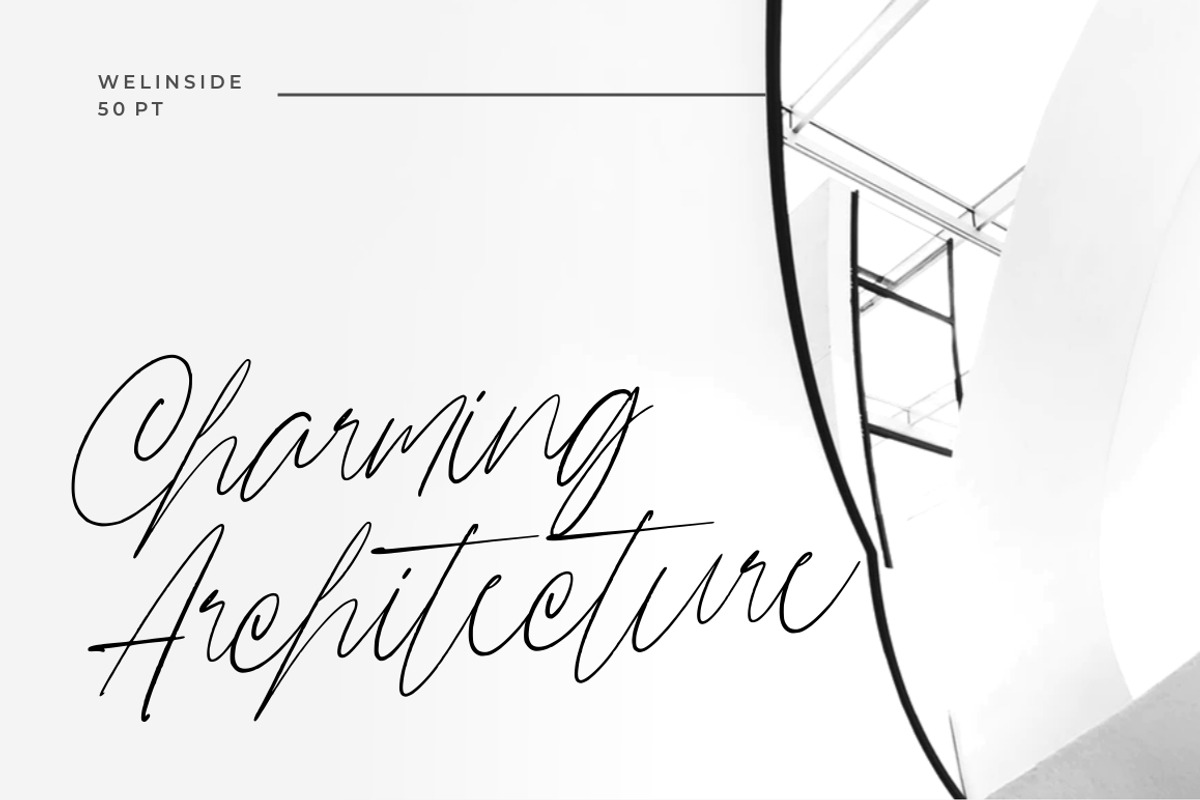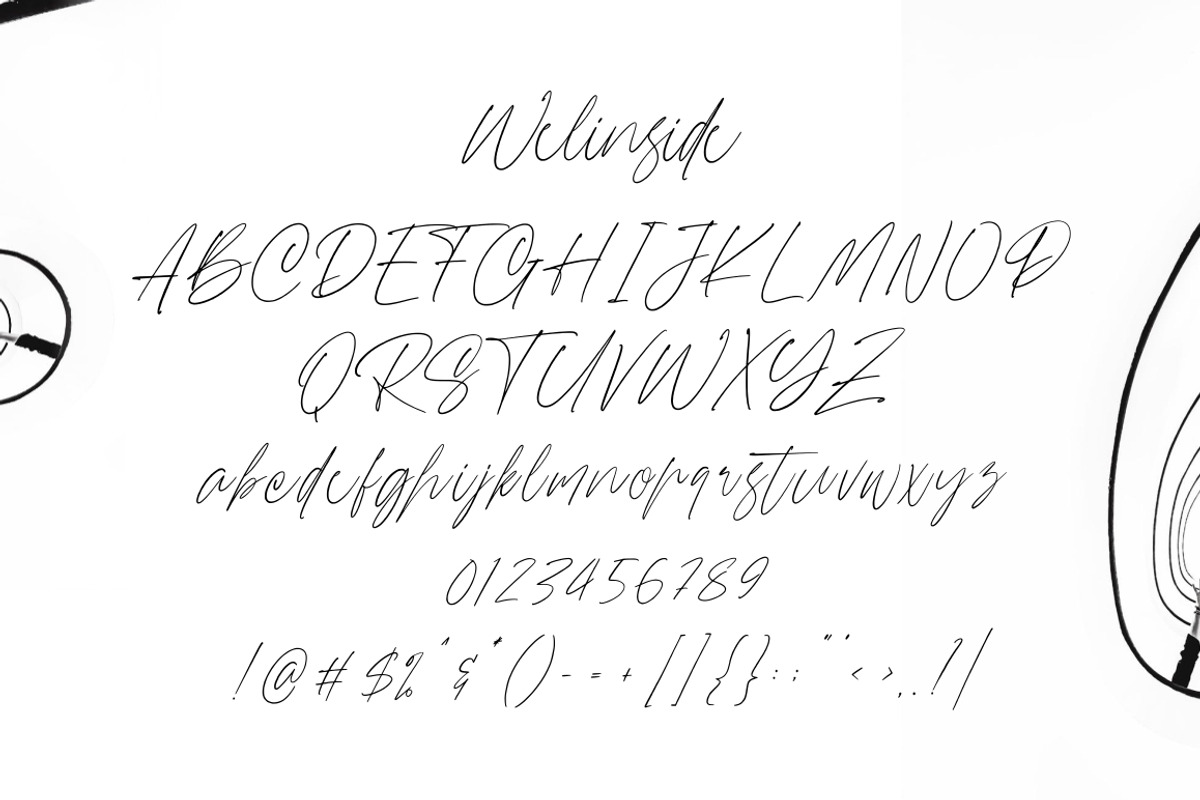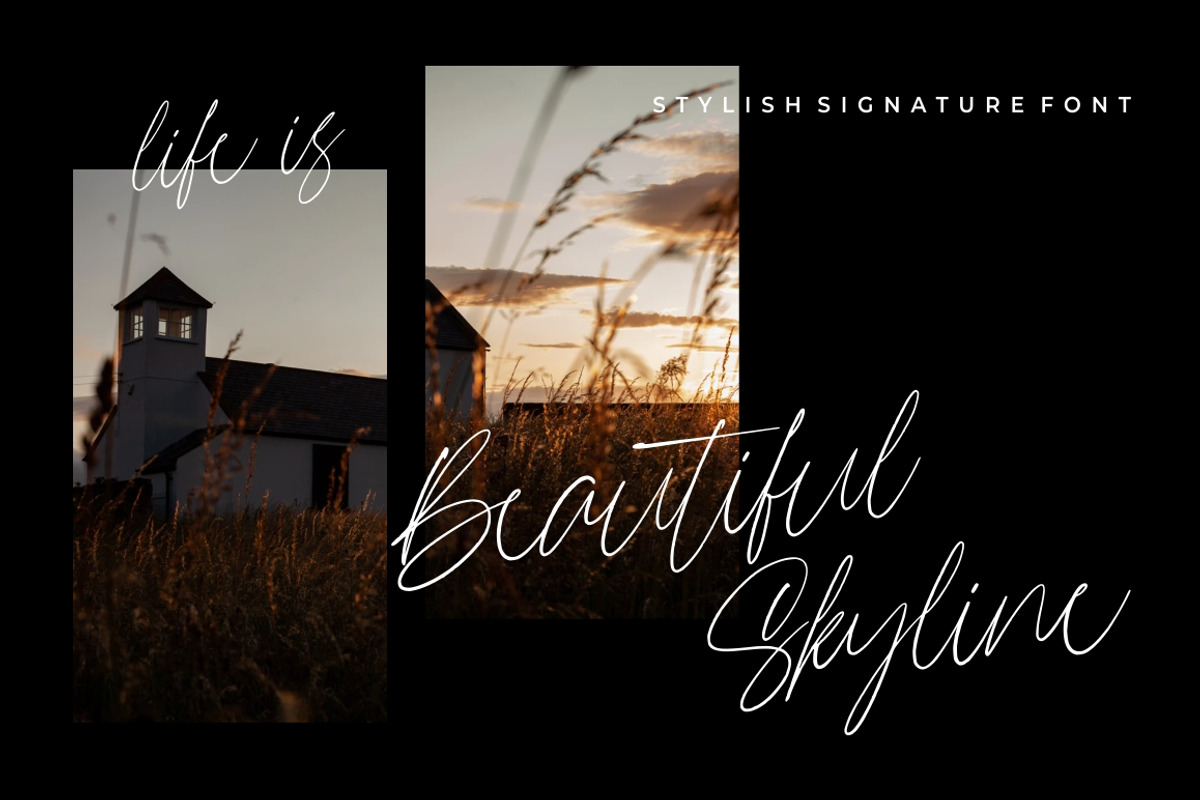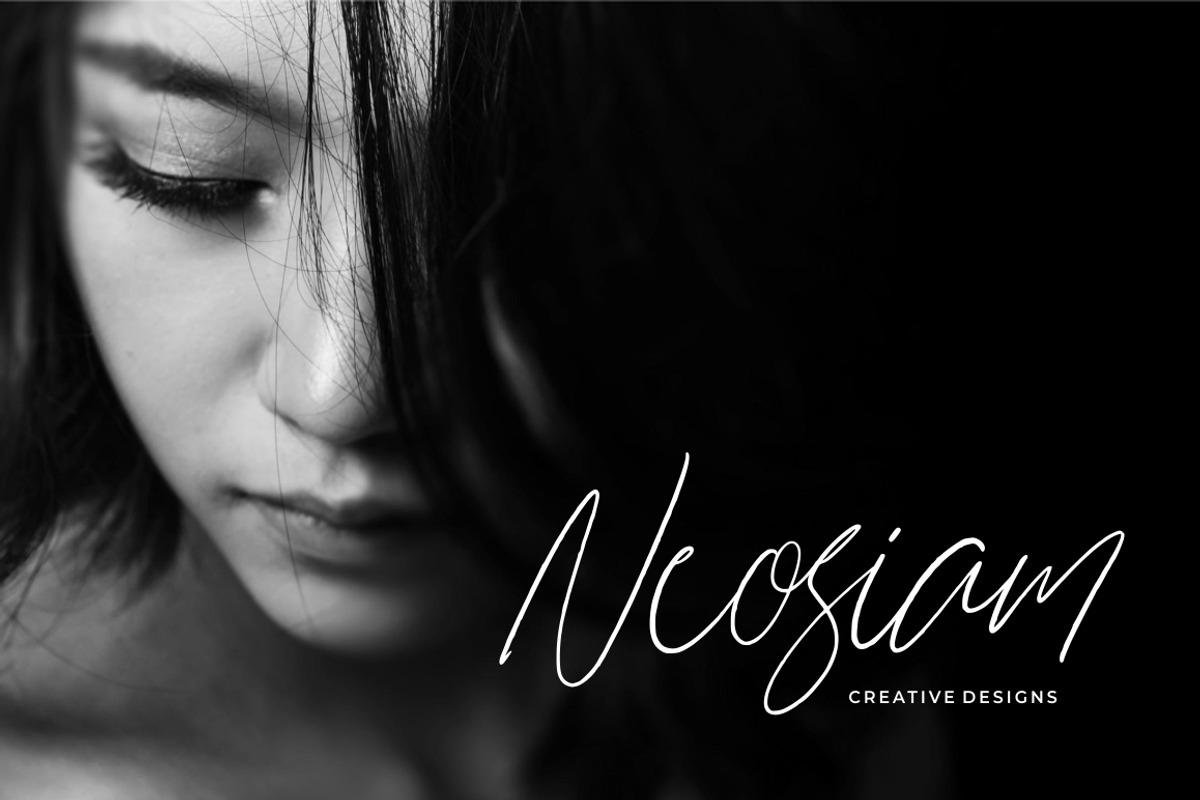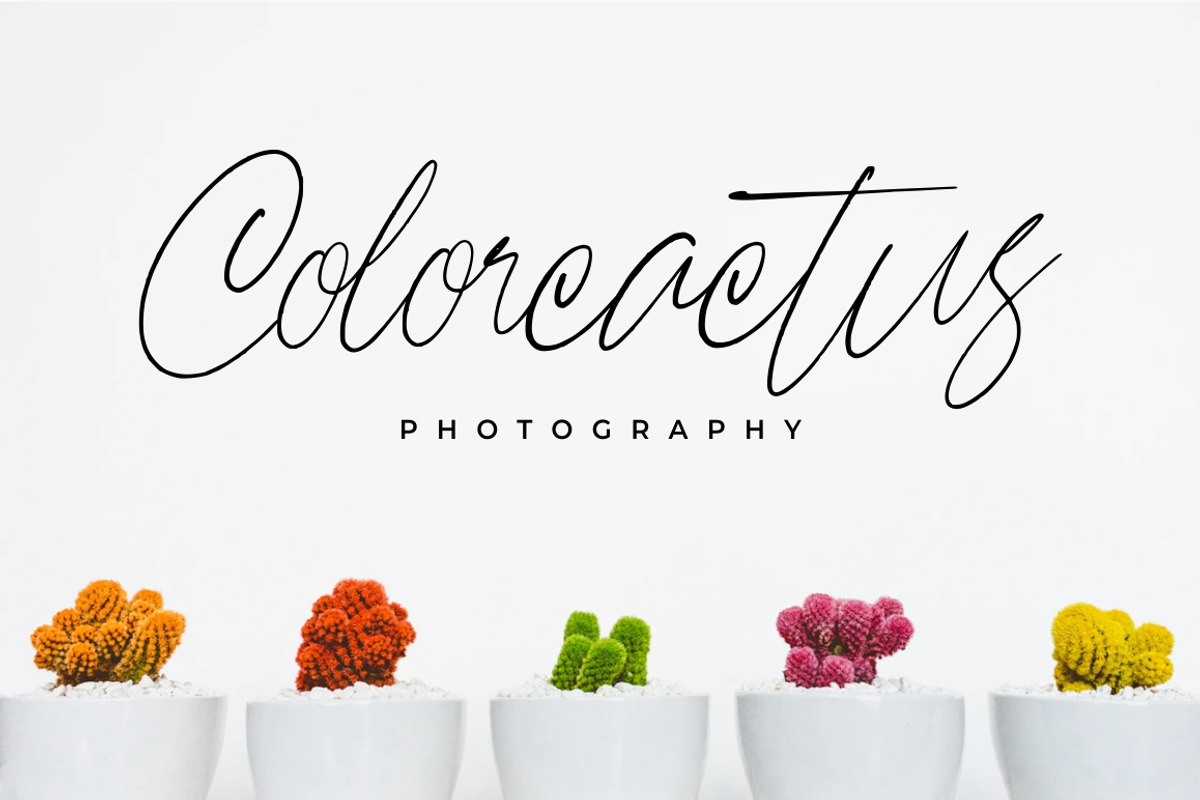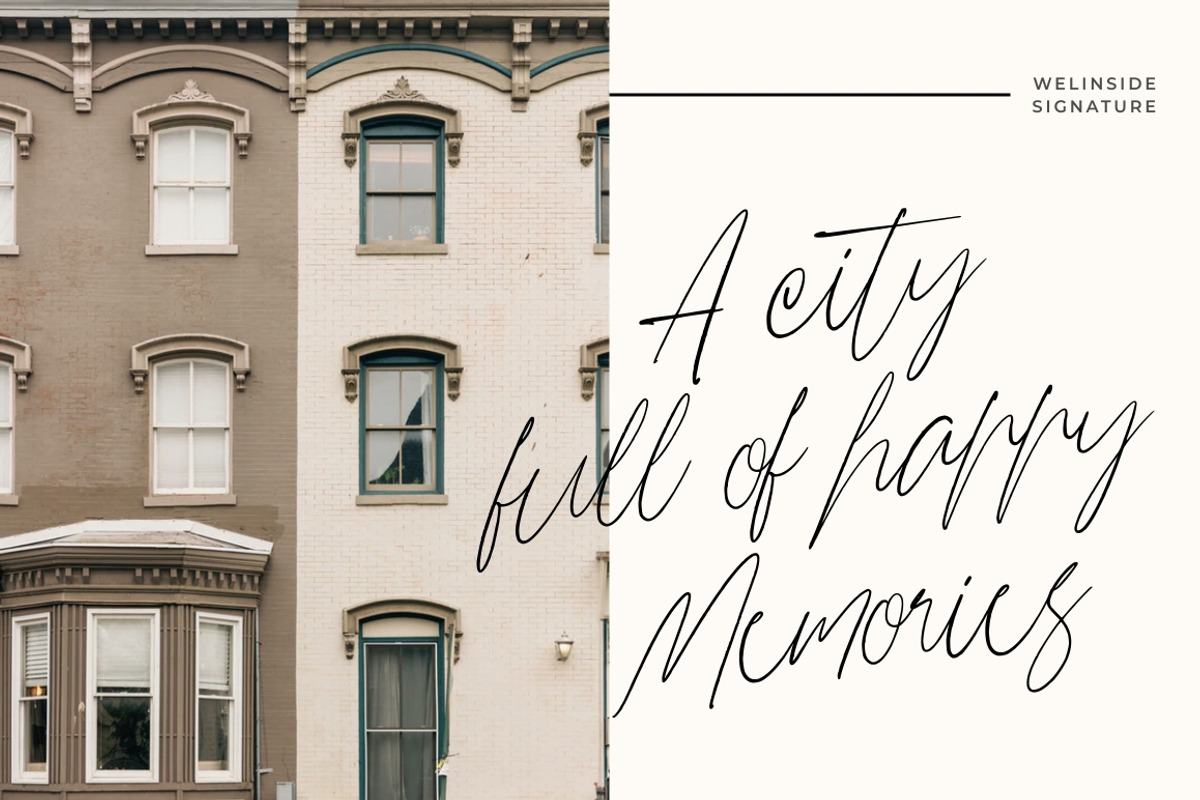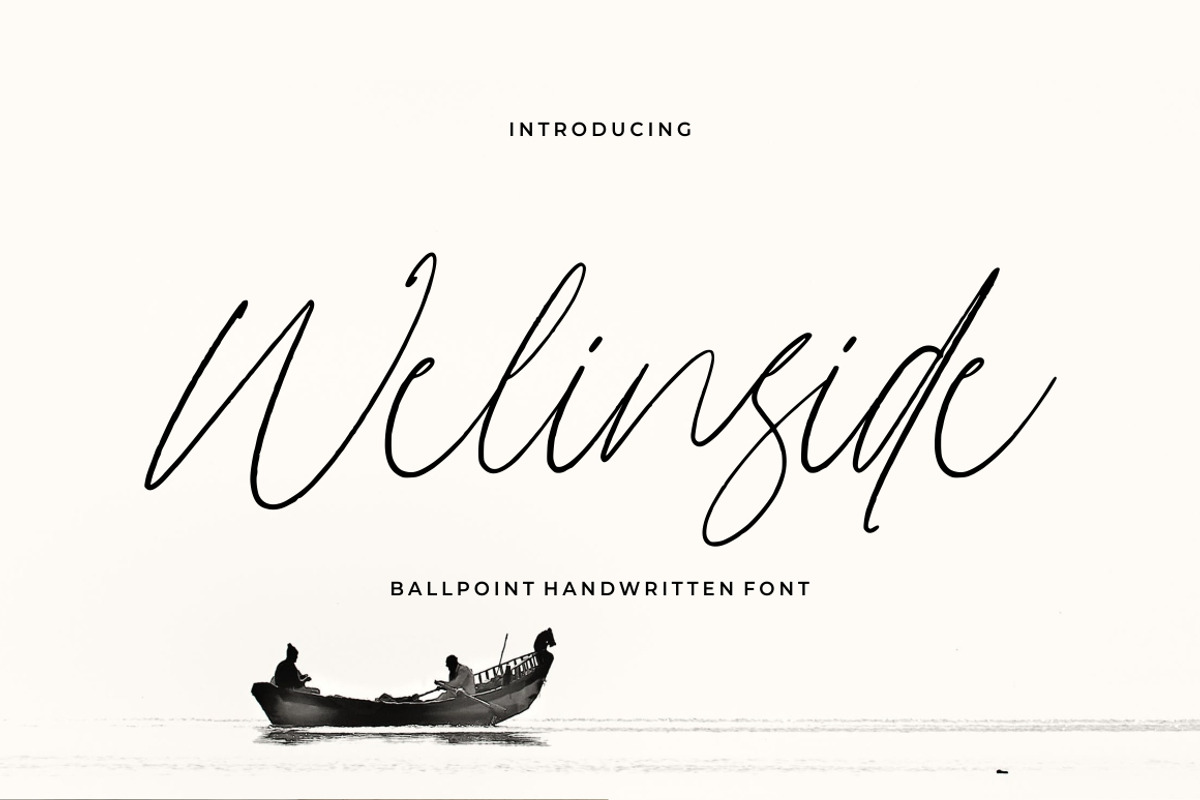
Welinside - Handwritten Font
Introducing Welinside - Handwritten Font
Welinside - Handwritten Font is a natural & modern handwritten font. I'ts Perfect for logo, invitation, stationery, wedding designs, social media posts, advertisements, product packaging, product designs, label, photography, watermark, special events or anything. This font include : Welinside OTF-TTF-WOFF, Ligatures, and also Multilingual support.
What's Advantages Welinside ?
Very great for branding, logotype, handletteing, invitations, or fashion branding.
Welinside - Handwritten Font by Good Java Studio fits naturally into Branding, posters, packaging, typography.